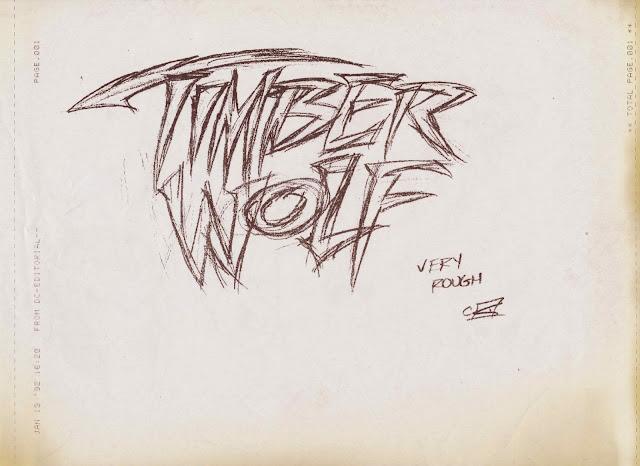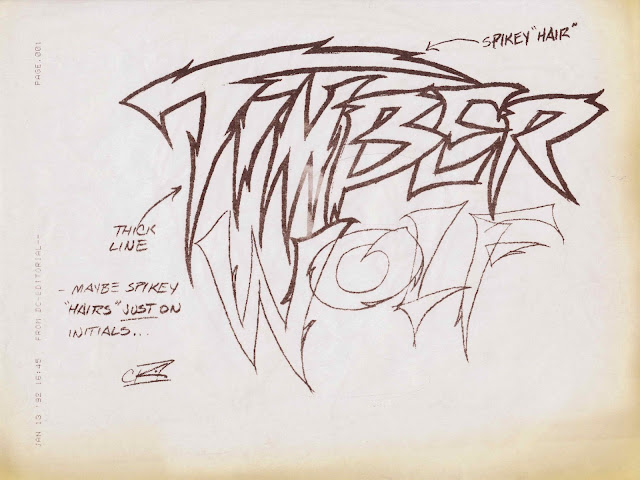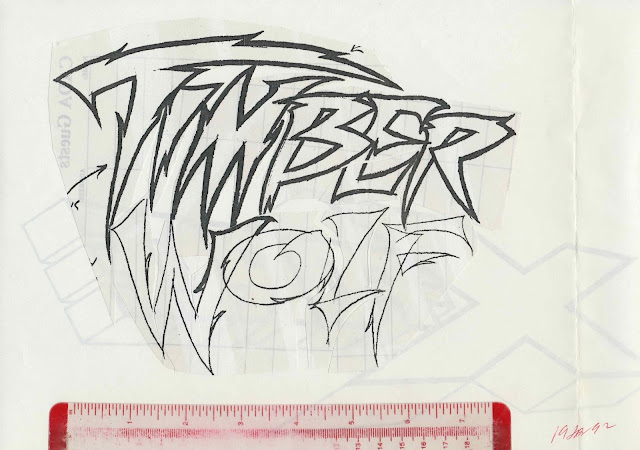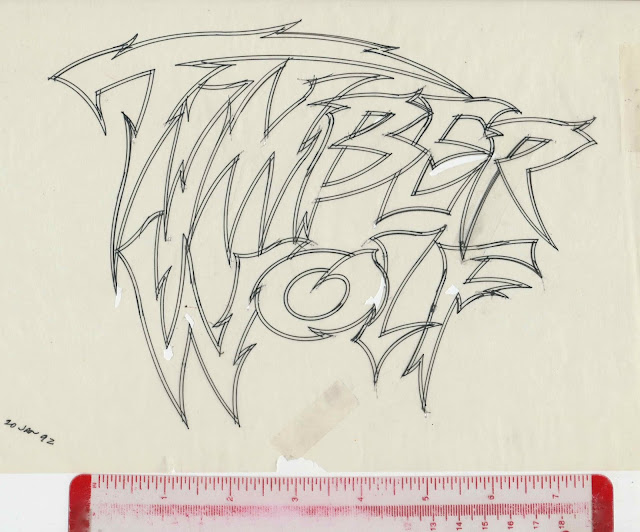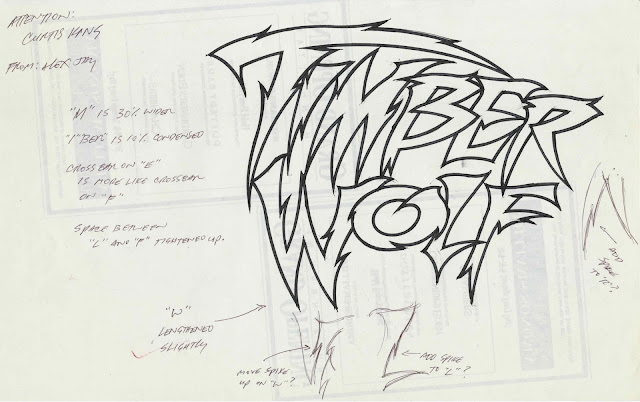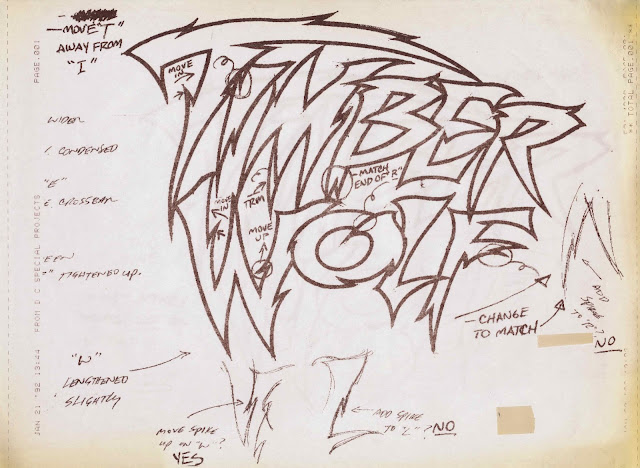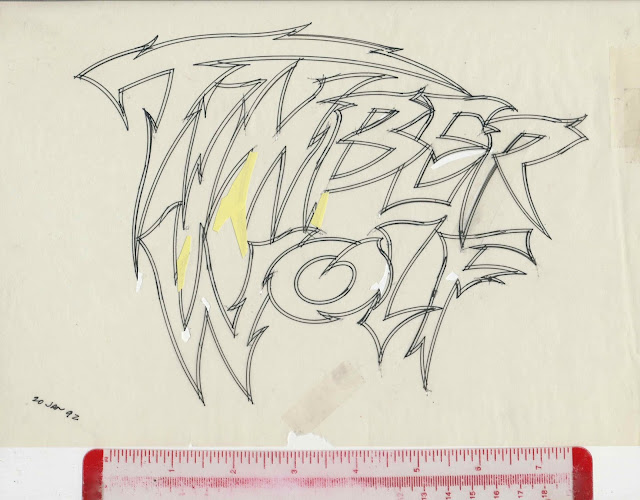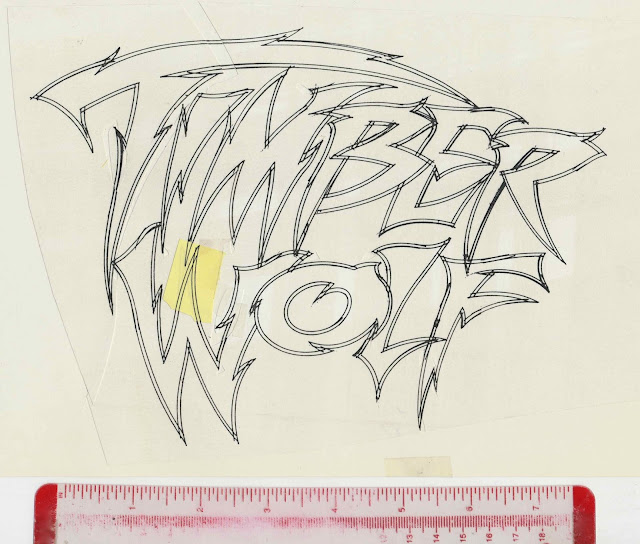
On January 13, 1992, Curtis King, of DC Comics, faxed five pages of
Timber Wolf sketches. I accepted his offer to refine and finish the logo.
Work began January 19, 1992; photocopy of fax made on the blank side of an X-Force photocopy.
Bold outline added to Wolf; red guide lines added; arrows and circles indicating adjustments
On January 20, tracing paper was placed over the above photocopy
and a tight outline rendering of the logo was made.
The outline rendering was photocopied and filled in. Questions and
suggestions were noted in the margins. This was faxed to Curtis.
Curtis’s response to my fax.
Pieces of a Post-It Note covered the affected areas.
Photocopy with changes made to letters T, W, M, B and O.
The T and I do not touch. I also made an alternate W.
Timber Wolf logo with version one of W.
Timber Wolf logo with version two of W.
Photocopy with additional changes to be made.
The final art measures 8.625 x 12.06 in / 21.91 x 30.63 cm.
Timber Wolf was published from November 1992 to March 1993.